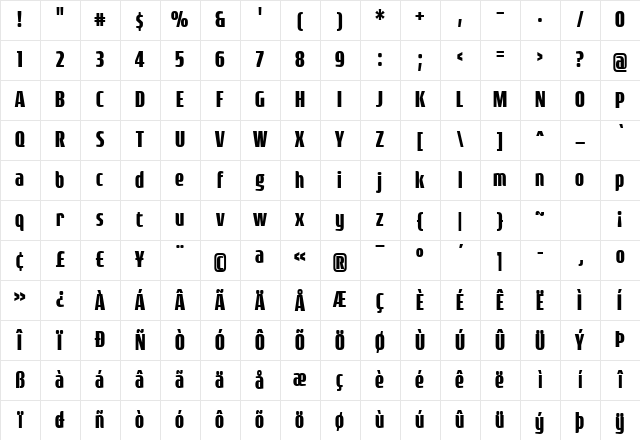
Rogue Sans Cond Bold Free Font
Rogue Sans Cond Bold
Design Context for Rogue Sans Cond
Rogue Sans Cond is a composed and adaptable typeface that performs quietly and consistently across a wide range of design contexts. Its bold stroke weight gives it real presence on the page. Its narrow stance lets it pack a punch even in space-constrained designs.